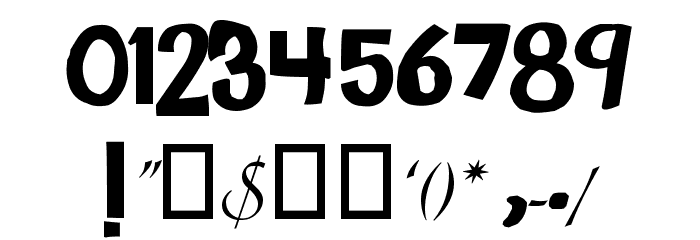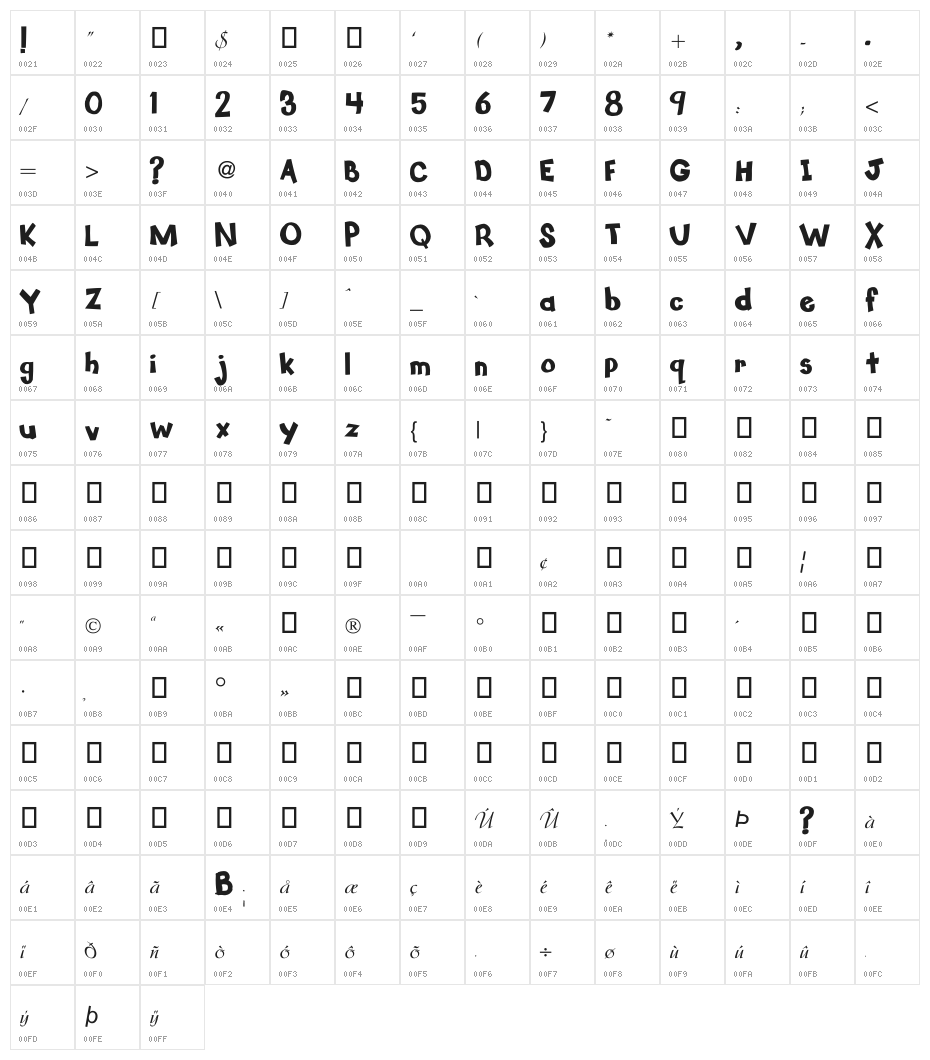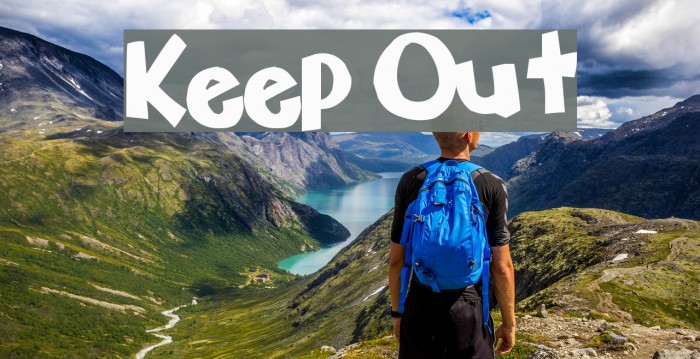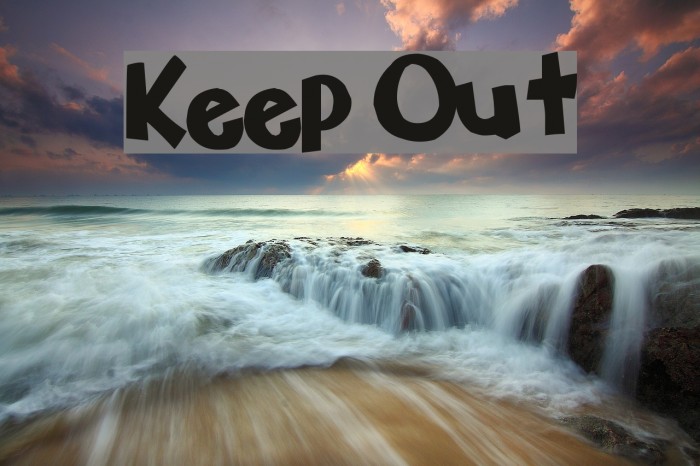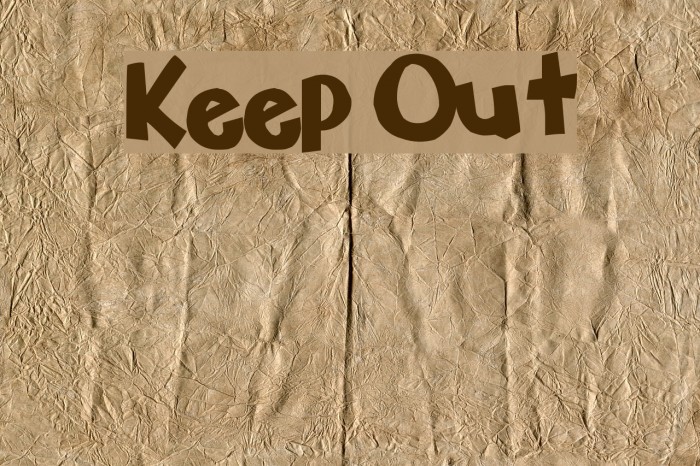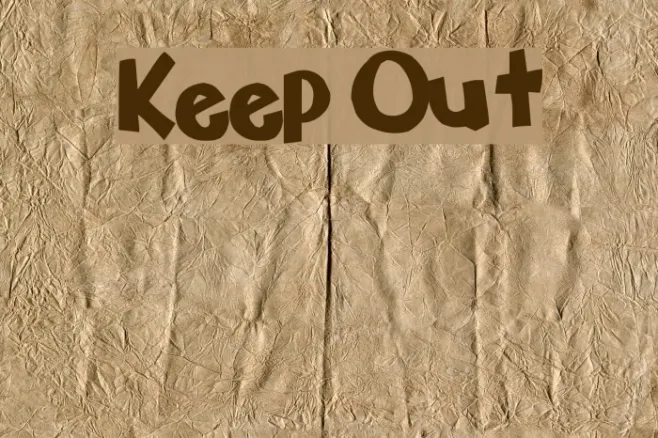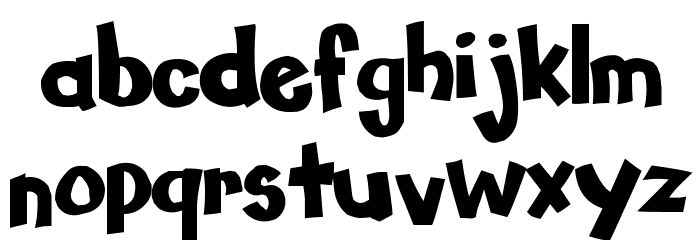
Keep Out Font
Keep Out Description
This font features a playful and bold style with exaggerated curves and angles, giving it a lively and dynamic appearance. The uppercase letters are robust and slightly irregular, adding a sense of movement and energy. The lowercase characters maintain this whimsical quality, with rounded forms and a slightly uneven baseline. Numbers are bold and consistent with the overall style, ensuring readability while maintaining the font's unique character. Special characters are creatively designed, fitting seamlessly with the rest of the set. This font is ideal for projects that require a fun and engaging visual impact.
Overall StylePlayful, Dynamic
Proposed ProjectsIdeal for children's books, playful branding, posters, and event invitations.